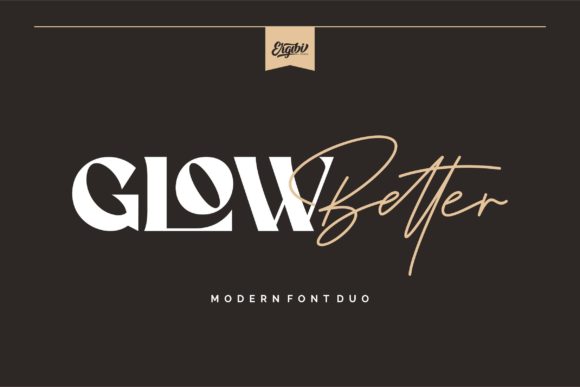
Journey into the world of sophistication and vintage charm with Glow Better Font, a meticulously crafted duo font that will elevate your designs to new heights. Let your creativity soar, for Glow Better is not just a font; it is an artistic expression waiting to be unleashed upon your projects.
With its captivating serif and script combination, Glow Better commands attention, exuding an air of strength, confidence, and timeless elegance. Each letter dances across the page with a graceful poise, inviting your audience to immerse themselves in the beauty of your creations.
But Glow Better is more than just visually stunning; it is also incredibly versatile. Whether you're designing packaging, branding, logos, or any other creative endeavor, Glow Better seamlessly adapts, adding a touch of nostalgia and charm to every project it graces.
The possibilities are endless with Glow Better. Imagine your packaging designs radiating with an old-world charm that captivates customers from the first glance. Picture your branding exuding a timeless sophistication that sets you apart from the crowd. Or envision your logos bursting with character and personality, leaving an indelible mark on the minds of your audience.
Glow Better is more than just a font; it's a gateway to a world of creative possibilities, where your imagination is the only limit. Embark on this artistic journey today and let Glow Better ignite your designs with a brilliance that will leave them unforgettable.
Unlock the full potential of your creativity with Glow Better Font, the ultimate choice for discerning designers seeking a font that goes beyond the ordinary.